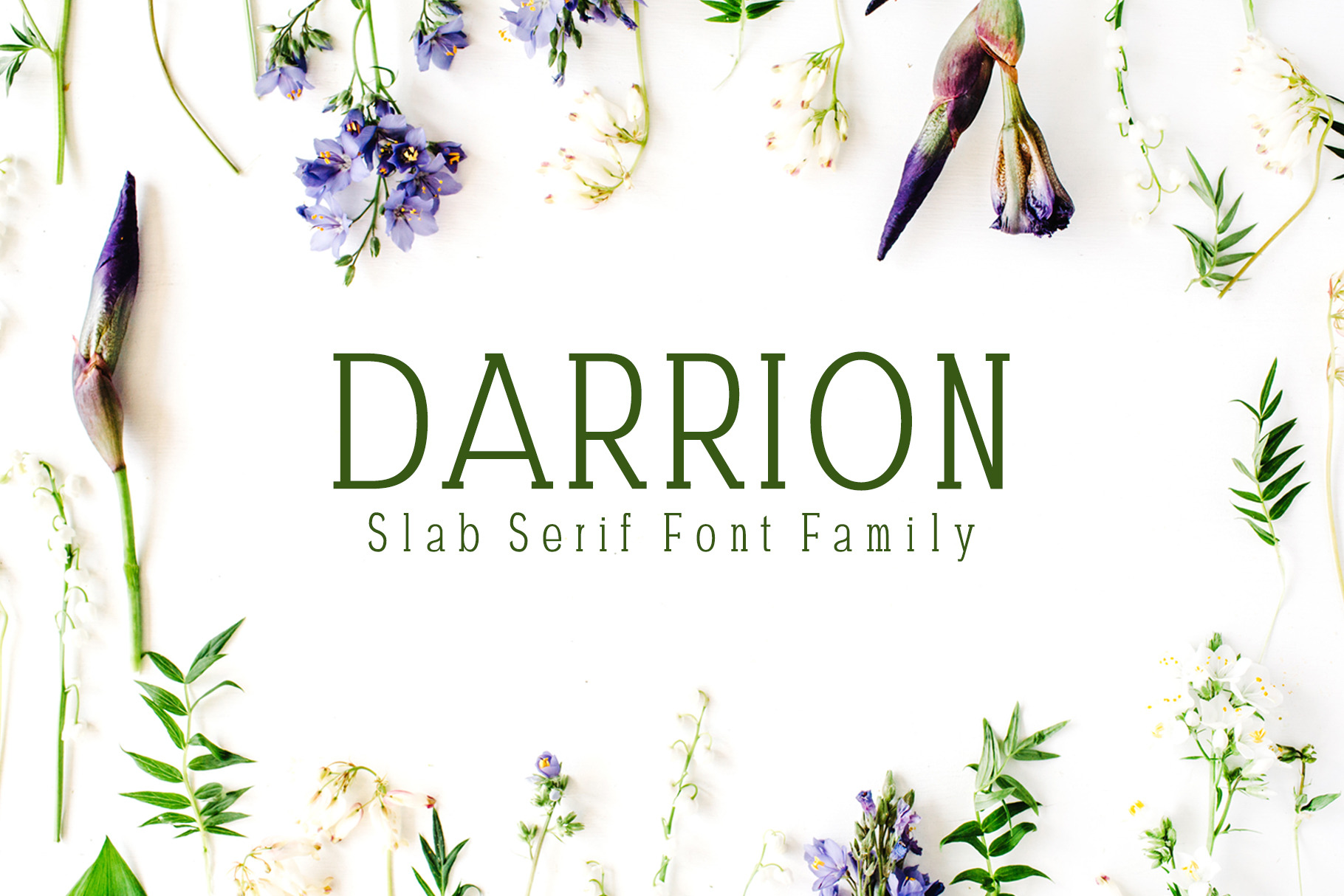
Darrion Slab Serif Font Family
Darrion Slab Serif Font is a mind blowing lovely font. Darrion comes with four weights. It is specailly designed for making minimal projects, but can be used for logo, templates, logos, headlines, decoration, banners and templates etc.
- Regular, Thin, Outline, Medium and Bold Weight
Darrion Font Features:
- Uppercase Multilingual Letters
- Lowercase Multilingual Letters
- Non English Characters ( Latin Supplement + Latin Extended A)